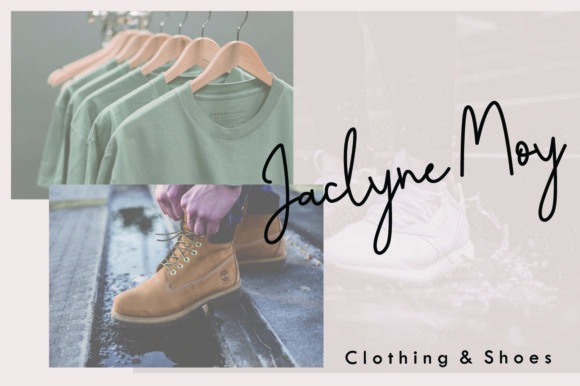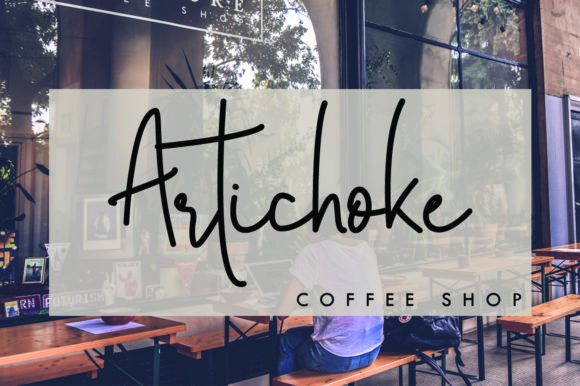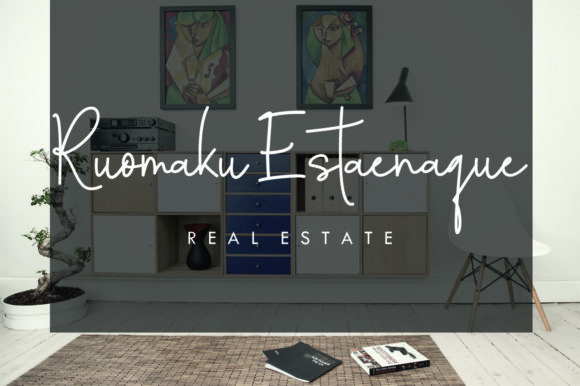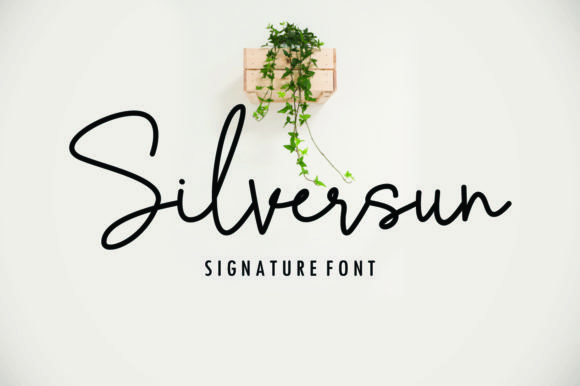
Introduction to Silversun Font
The Silversun is an elegant handwritten signature script.
It has a natural & stylish touch and is perfect for branding, wedding invitations, signatures, and much more .
Key Features of Silversun Font
Why Choose Silversun Font?
Silversun Font offers exceptional quality and versatility, making it a valuable addition to your design toolkit. Whether you’re creating for personal projects or commercial use, Silversun Font delivers professional results.